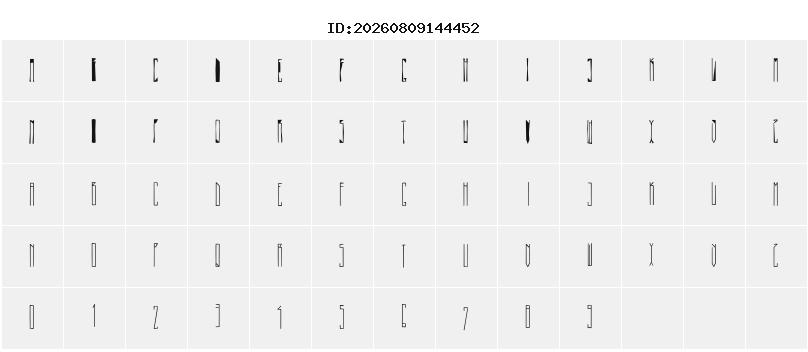
Pasta Simpla Preview
• Font Name: Pasta Simpla
• Full Font Name: PastaSimpla
• PostScript Name: PastaSimpla
About Pasta Simpla.otf
Pasta Simpla.otf is a modern, elegant sans-serif font designed for ultimate readability and visual harmony. Perfect for branding, headlines, web design, and print materials.